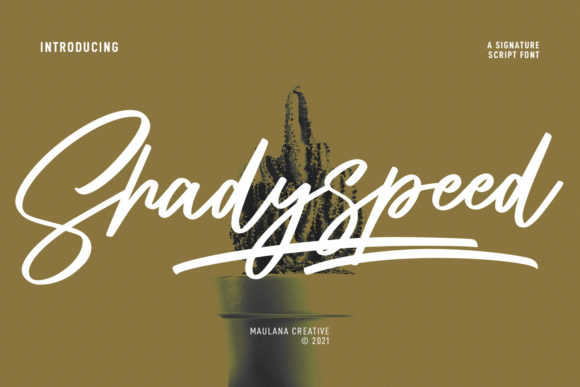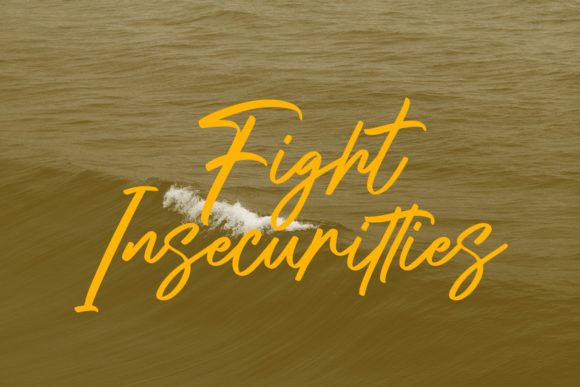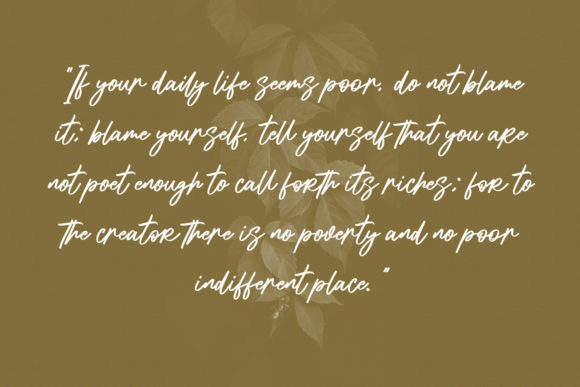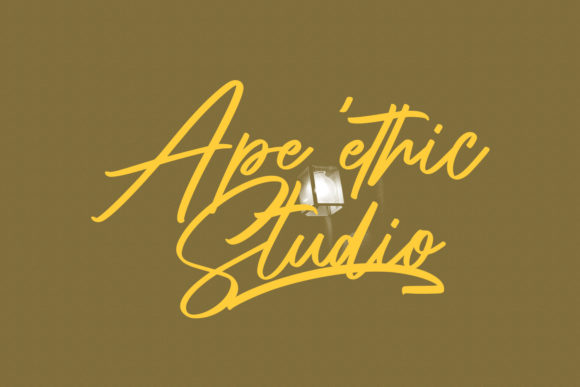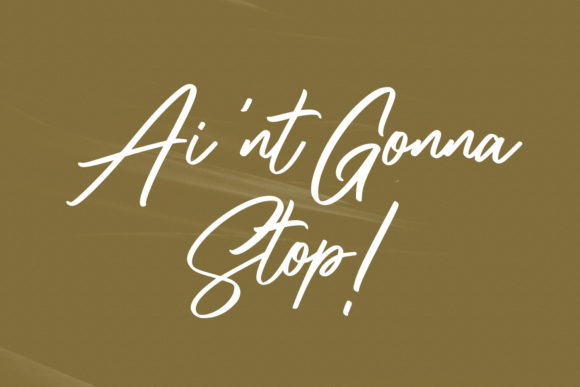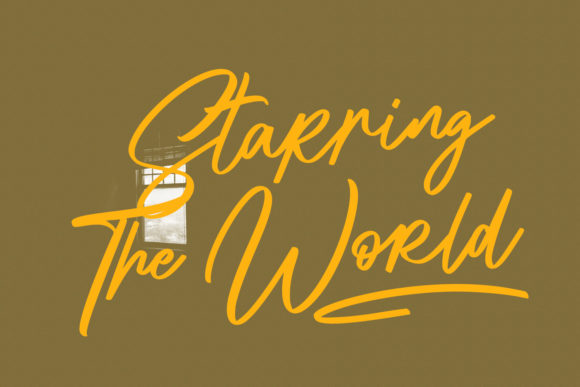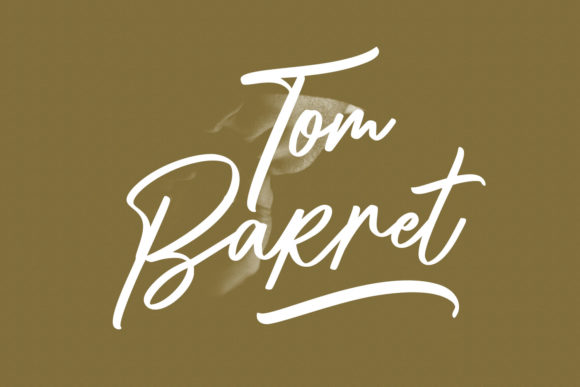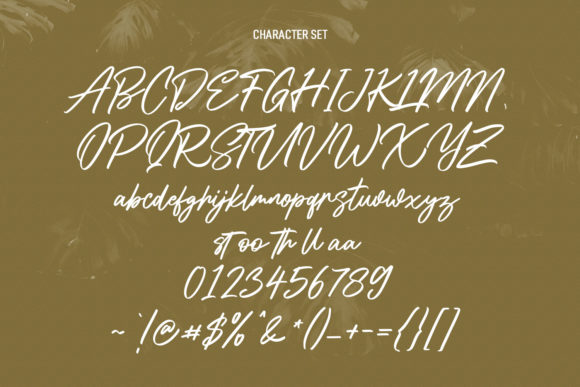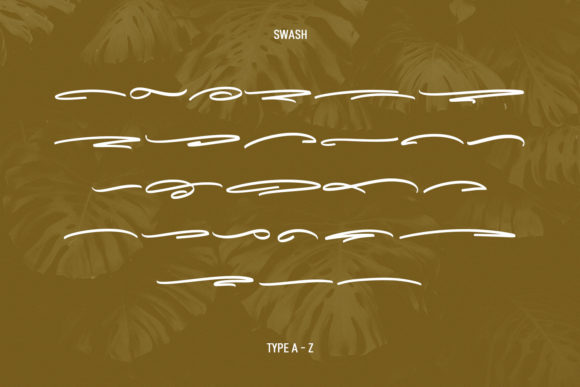
Shadyspeed Script Font Font
About Shadyspeed Script Font
Shadyspeed is a signature script font. In contrast, regular stroke, fun character with a bit of ligature and has two files lowercase alternates and swashes. This font is a perfect fit for logo design, Social media, Movie Titles, and Books Titles. Make a stunning work with Shadyspeed font!